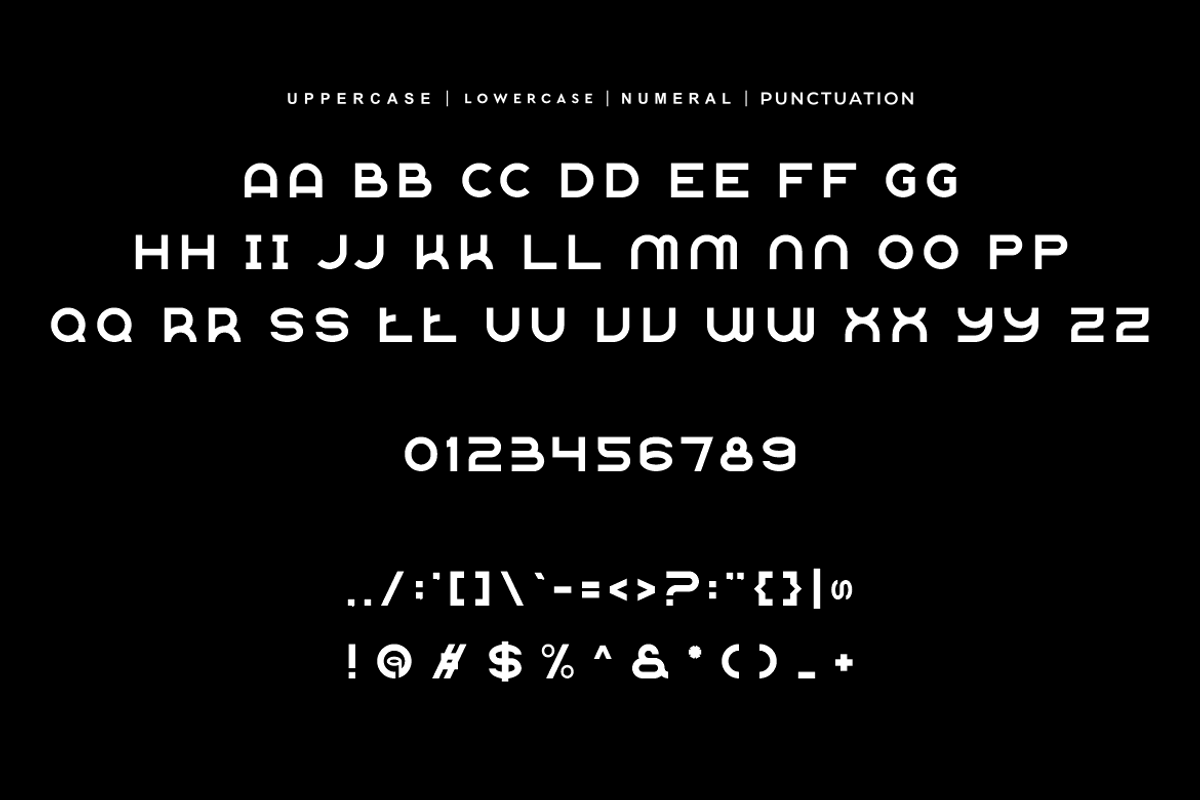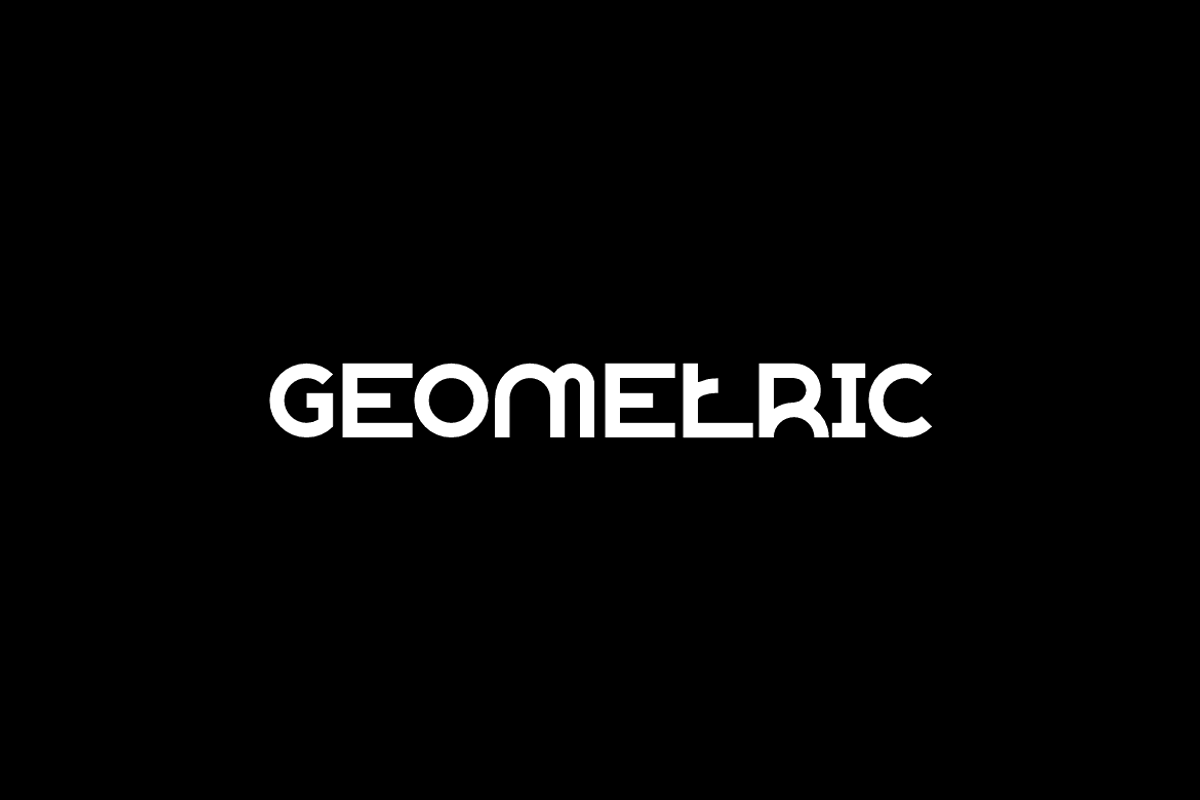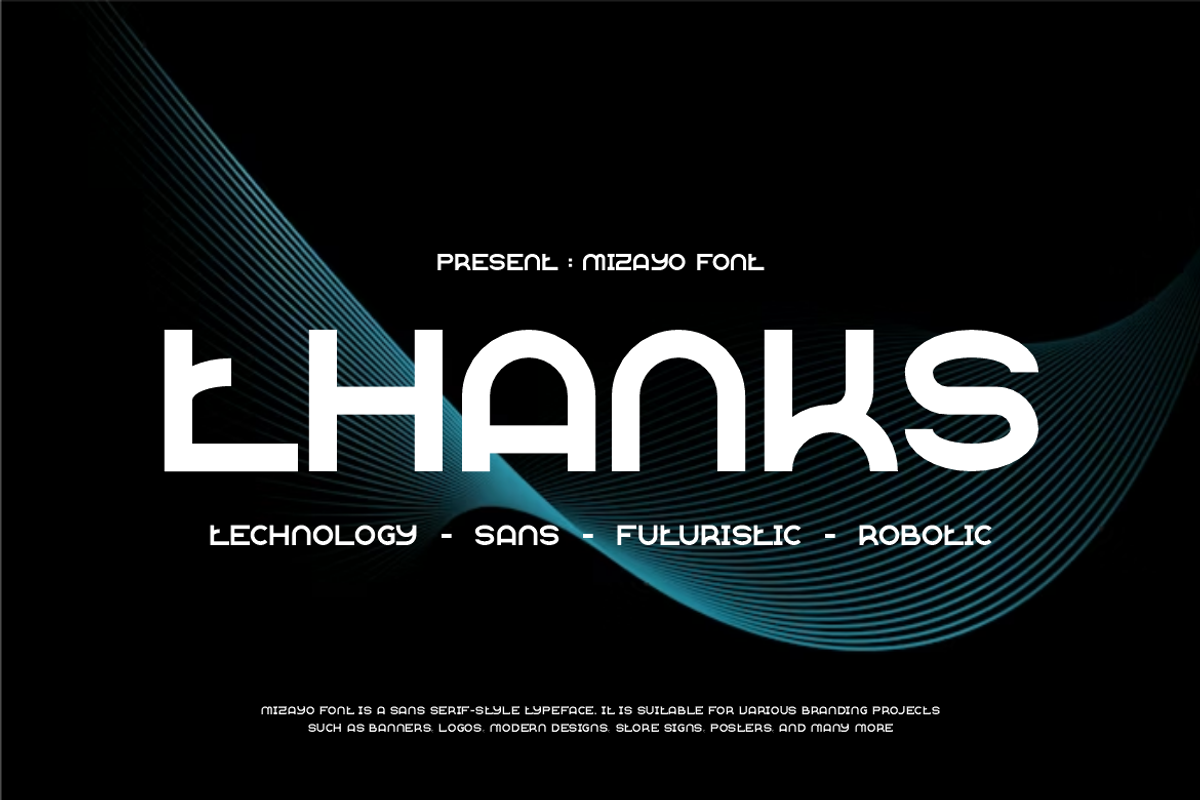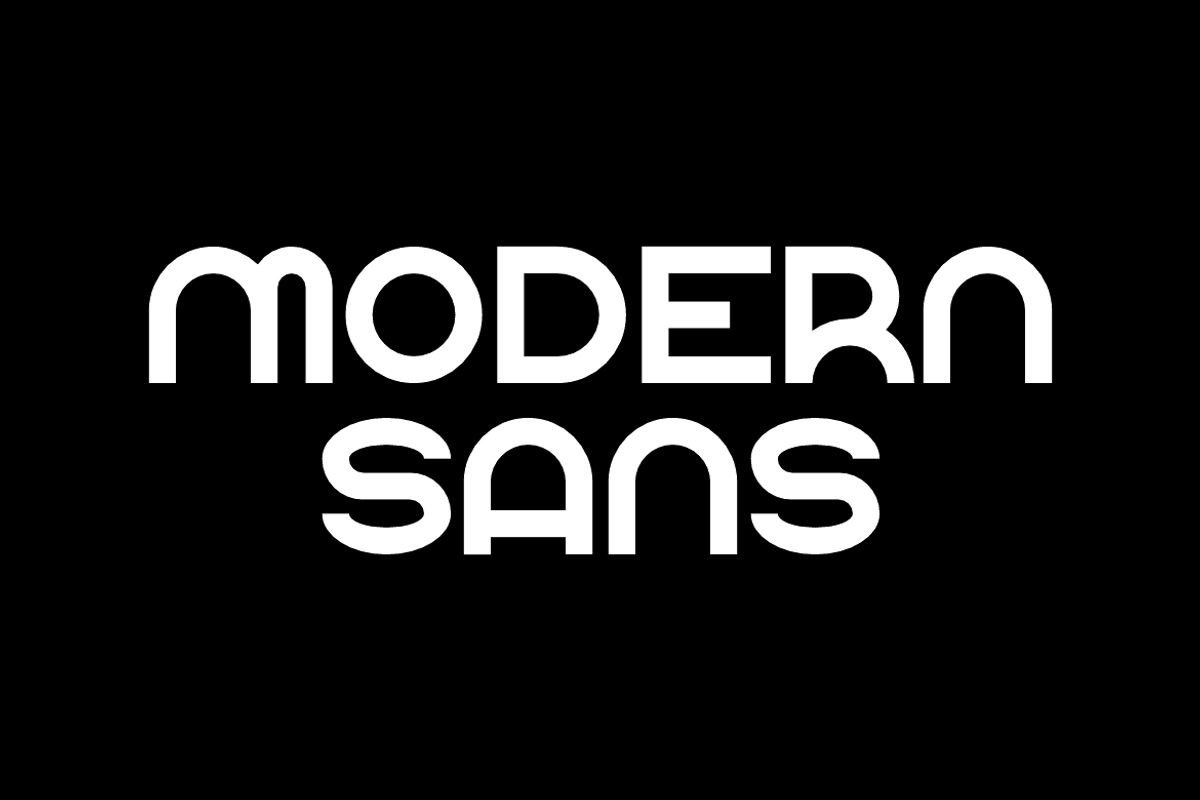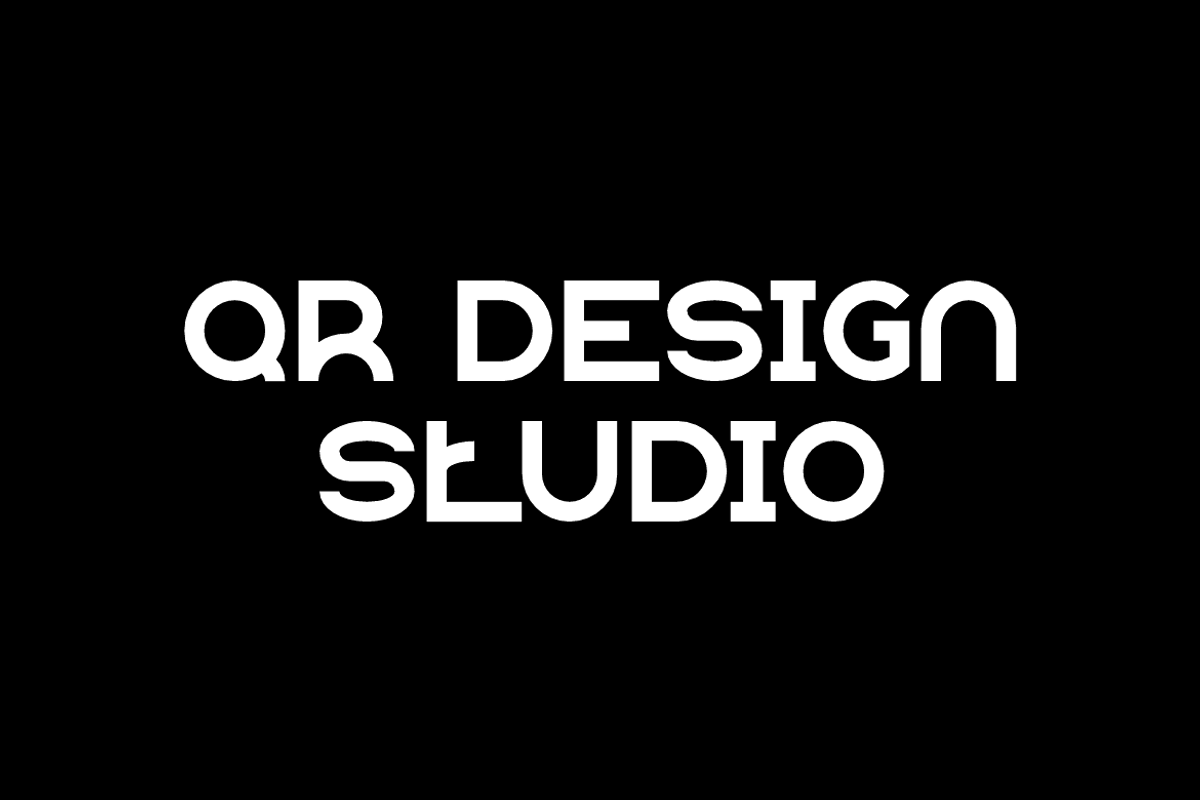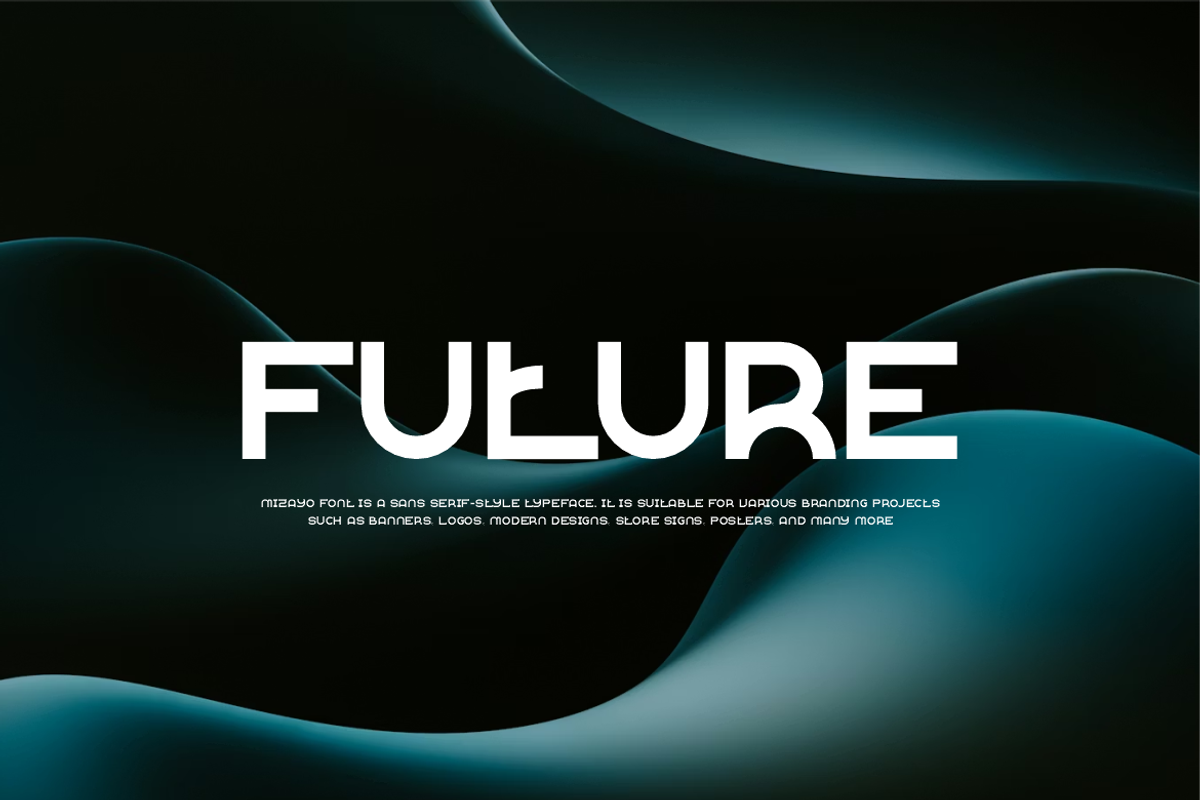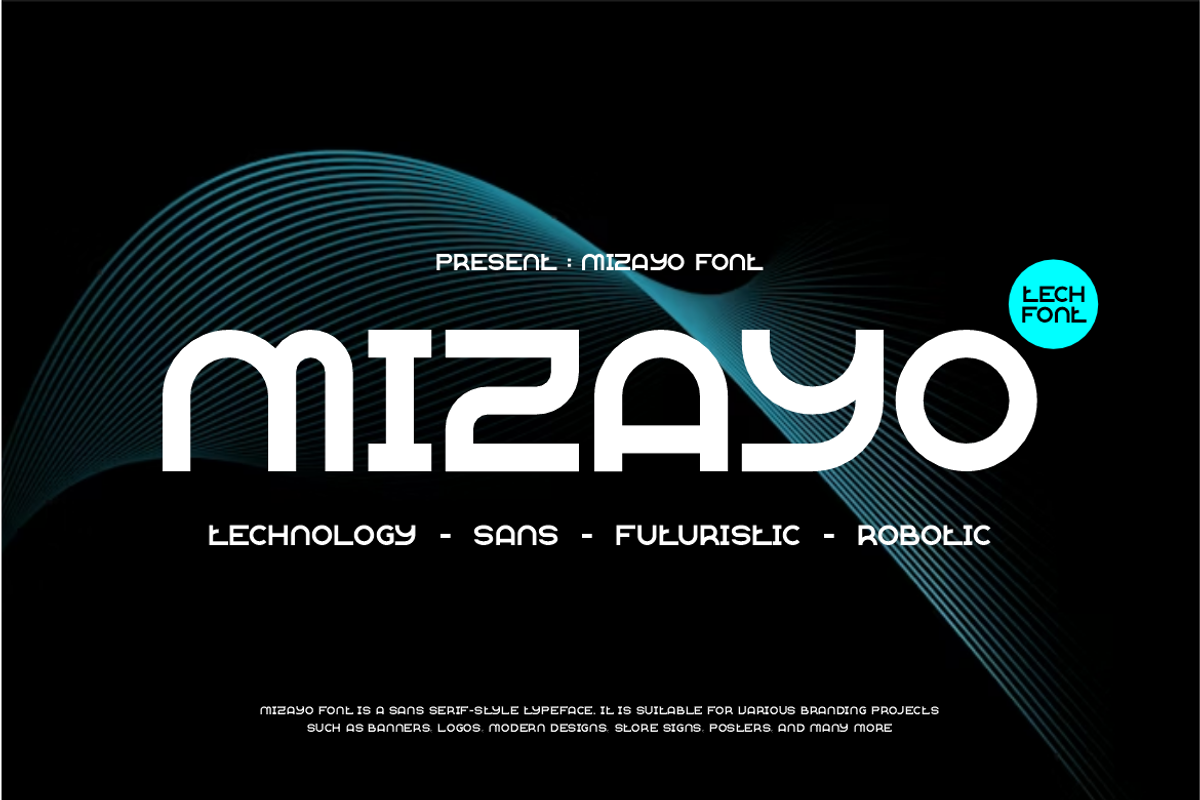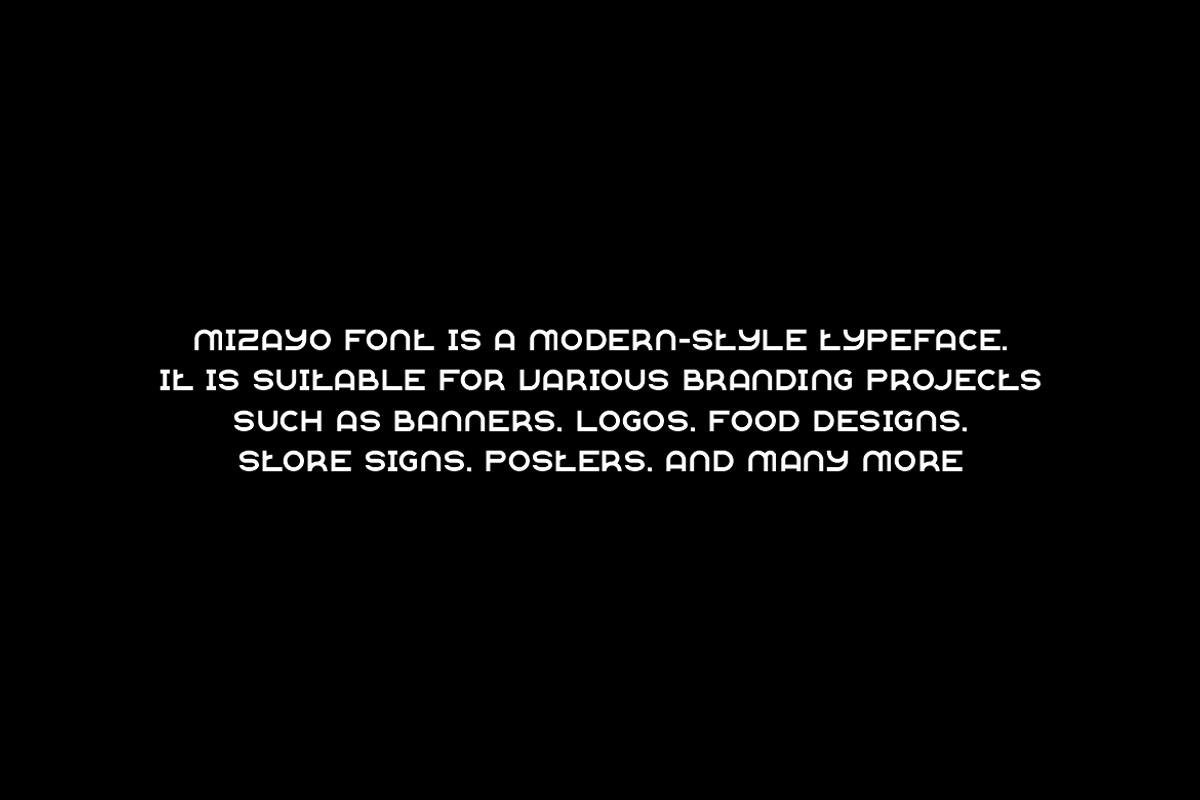
Mizayo - Geometric Font
Mizayo Font is a modern and authentic display typeface. It’s perfect for various branding projects such as logos, technology designs, and more. This font stands out beautifully in a wide range of contexts.